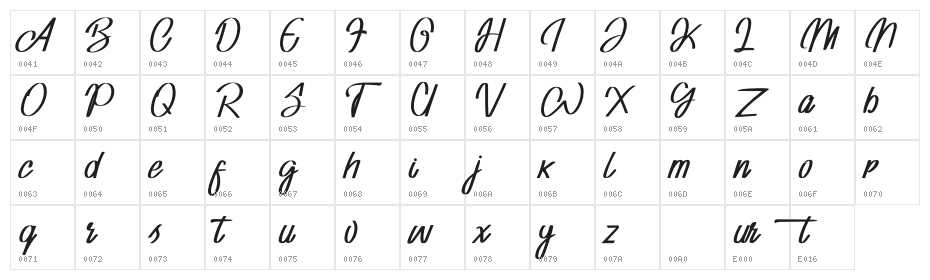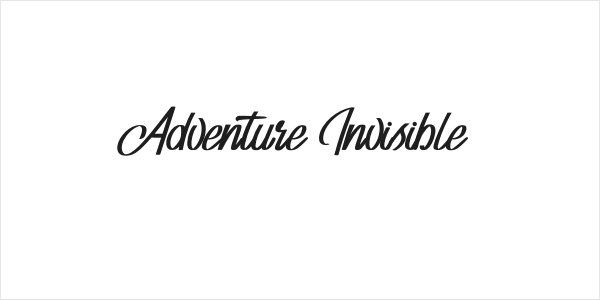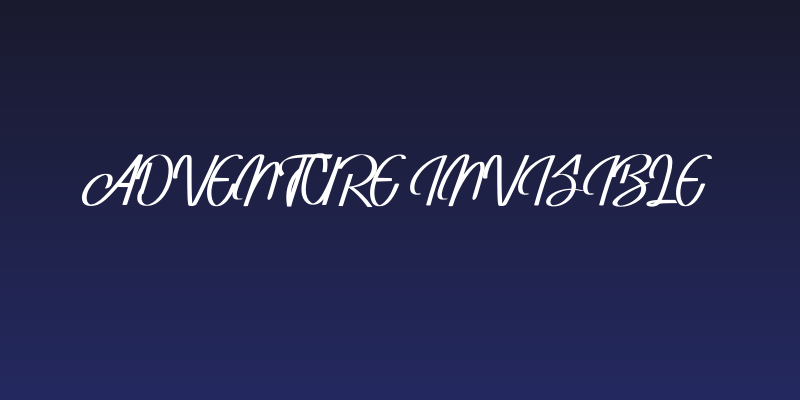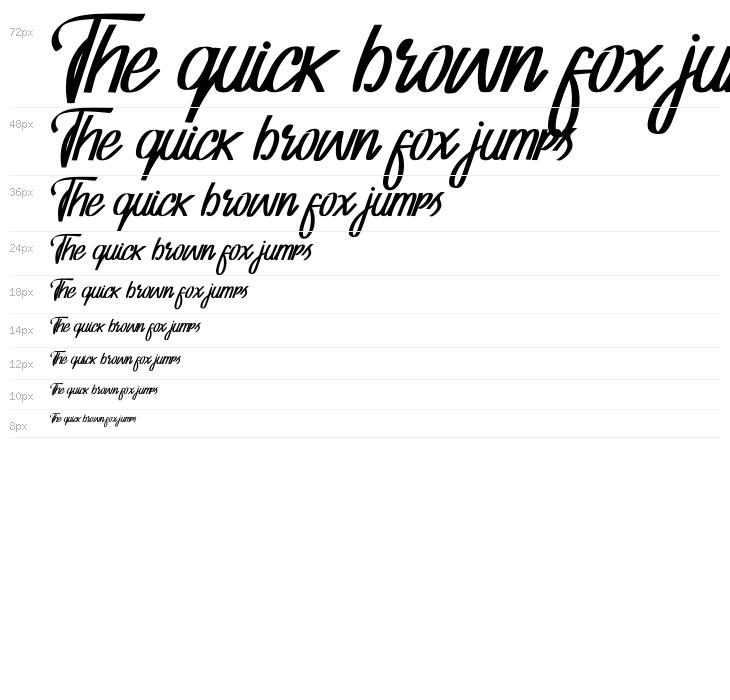
Adventure Invisible Font
Adventure Invisible Description
This font features a bold, cursive style with a dynamic and flowing appearance. The uppercase letters exhibit a strong slant, giving them a sense of movement and elegance. The lowercase letters maintain this fluidity, with some characters connecting seamlessly to others. The strokes are thick and consistent, providing a bold presence on the page. The overall design is reminiscent of calligraphy, with a modern twist that makes it suitable for a variety of creative applications. The characters are closely spaced, enhancing the cohesive look of the text.
| Proposed Projects | Ideal for branding, invitations, greeting cards, and creative headlines. |